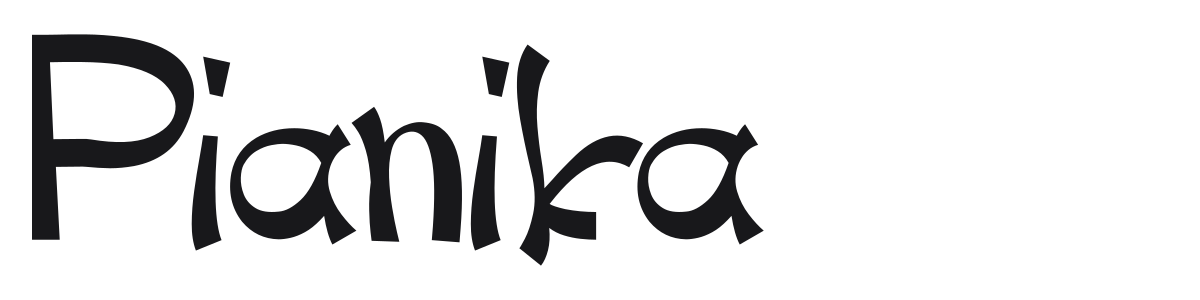
Pianika
by Indriyanti
Pianika is a casual handwritten display face by Indriyanti with letterforms that bounce and shift in size and baseline, giving it a genuinely quirky, off-the-cuff personality. The organic strokes feel spontaneous rather than carefully constructed, like notes scribbled in the margins of a notebook. Best used for headlines, packaging, and branding where a playful, human touch matters more than precision.